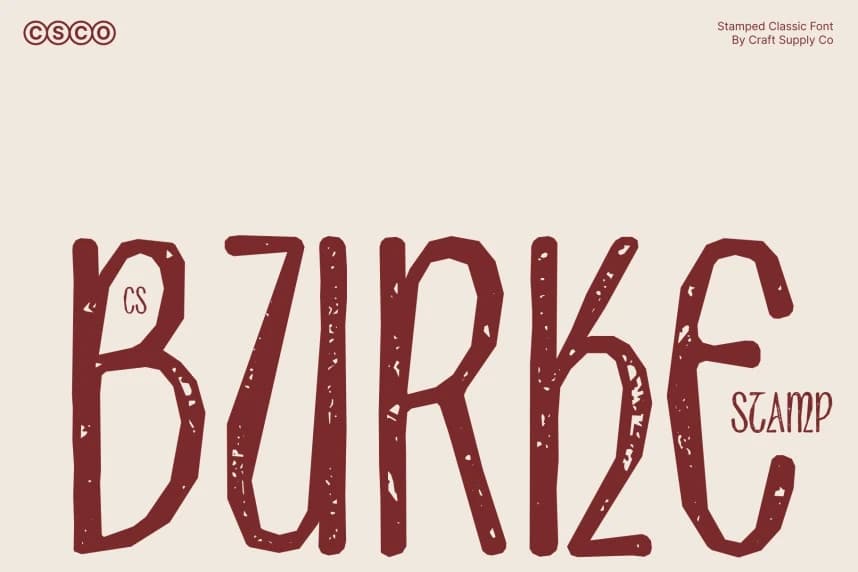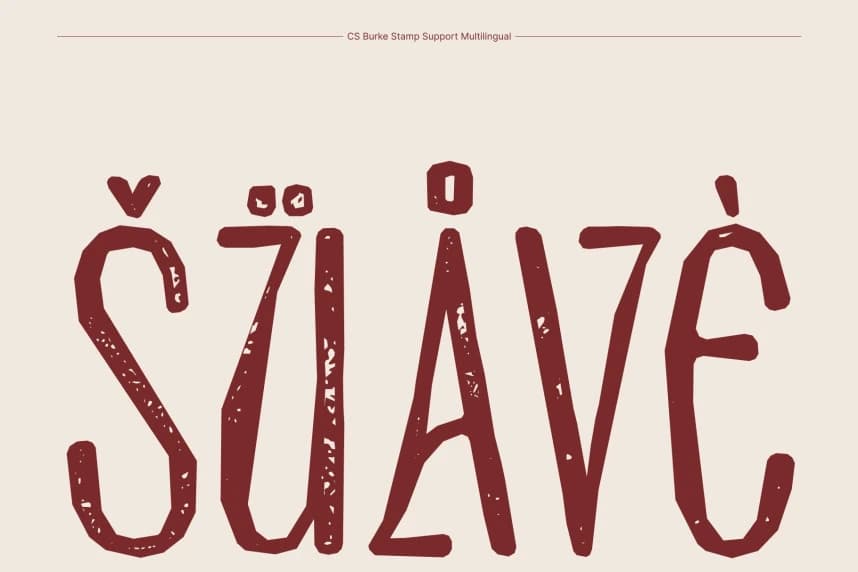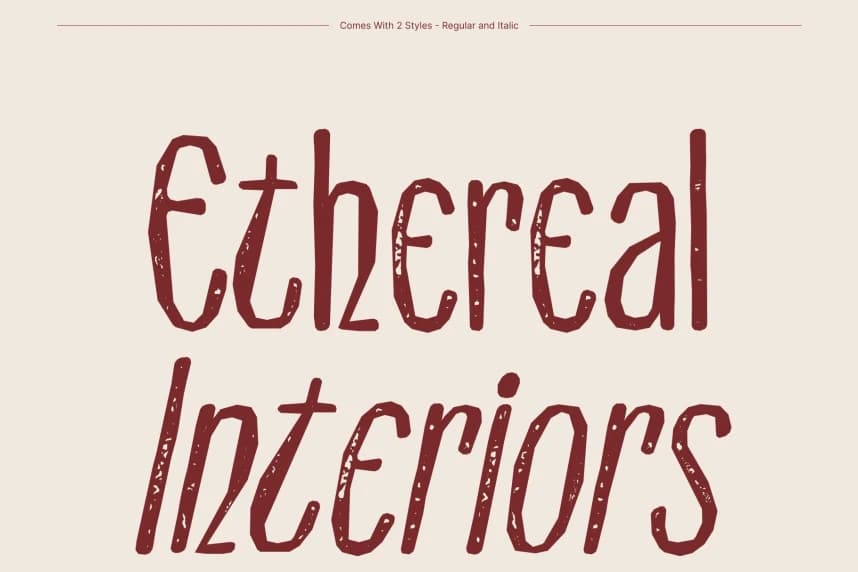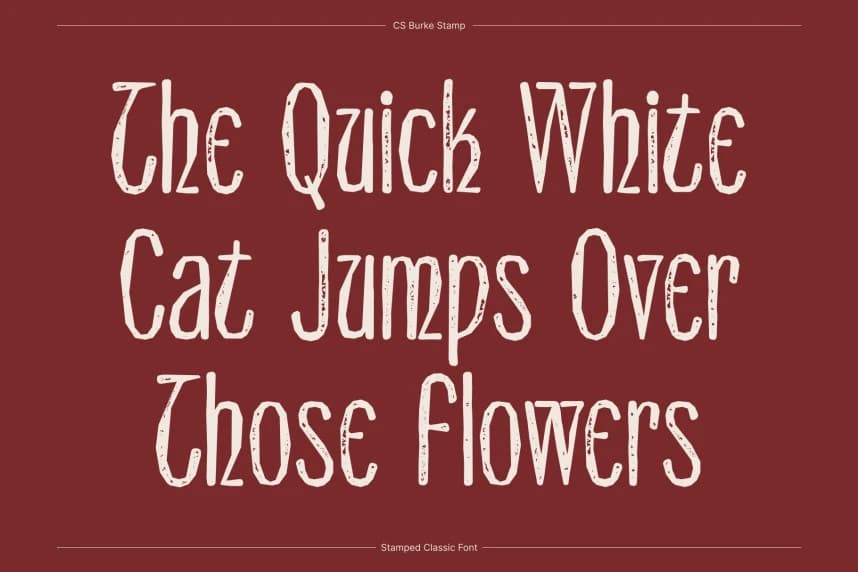
CS Burke Stamp Font
CS Burke Stamp Font – Classic Sans-Serif with Modern Elegance Modern Sans-Serif with Timeless Luxury. This is a refined sans-serif display font that fuses sleek modern minimalism with classic sophistication.